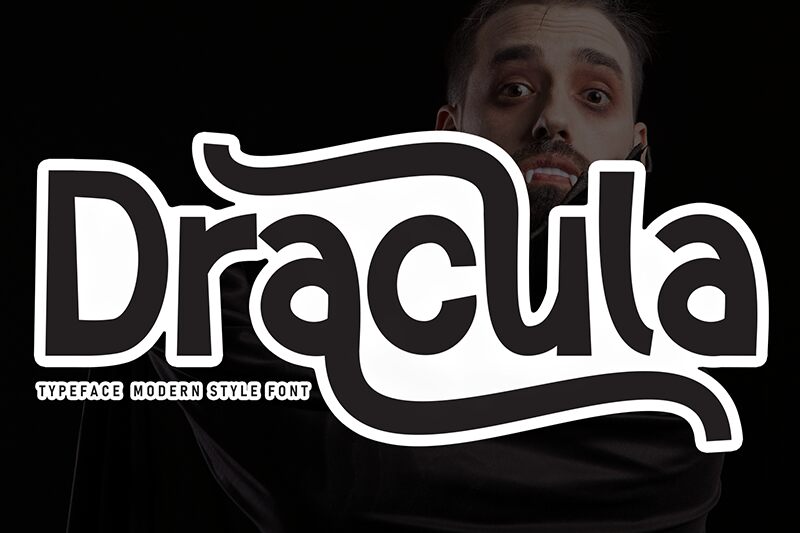
Dracula font by Andi Moz is a free font inspired by cartoon typography styles. Its outline bold letters arouse curiosity and excitement with the lack of inside details inside. The font perfectly combines a classic display with modern elements for well-balanced characters. Lively flow and smooth connections give the typeface a strong personality and impactful presence. Used as a title font, Dracula conveys a sense of energy to its readers.
Dracula font is suitable for entertainment themes, posters, kid-friendly books, music covers, and social media platforms. Make use of it in film posters, cartoon videos, gaming logos, packaging labels, ads, or animation.